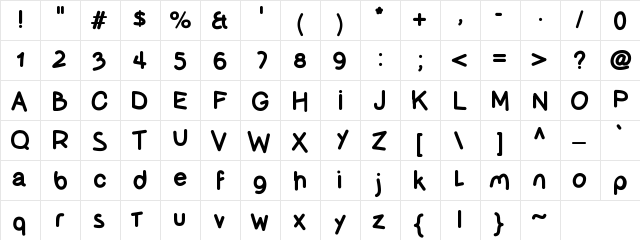
Complete OlivessansPimientoBold Bold glyph index. Displaying only characters natively supported by OlivessansPimientoBold Bold font.
OlivessansPimientoBold is a composed and adaptable typeface that performs quietly and consistently across a wide range of design contexts. Its bold stroke weight gives it real presence on the page.